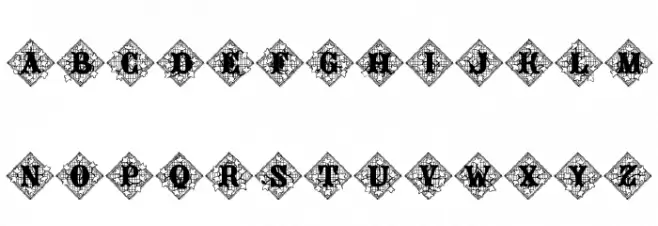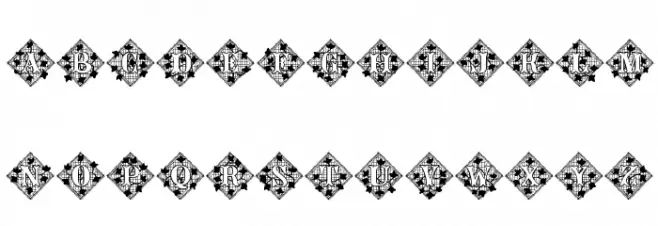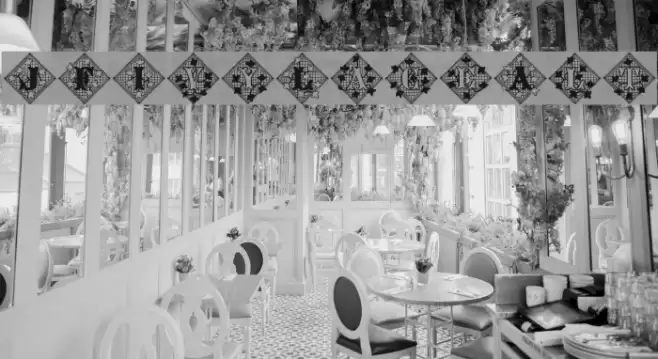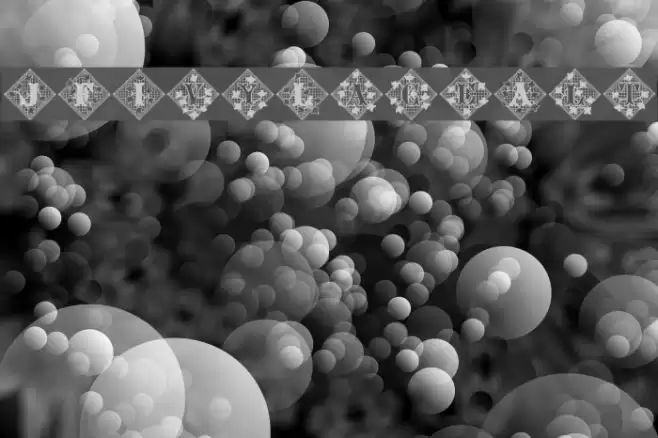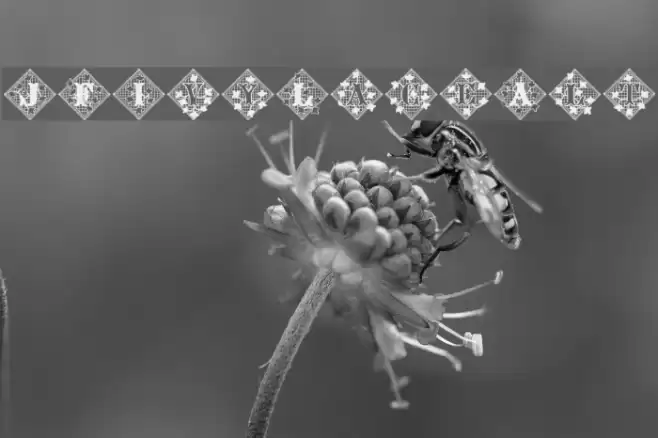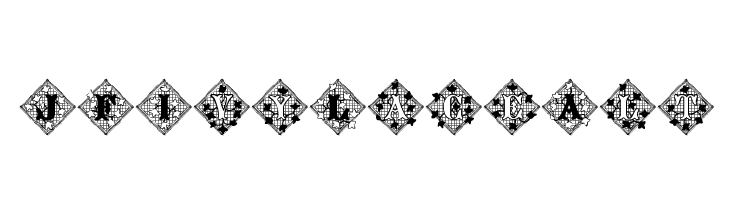
JFIvyLaceAlt
This font features an intricate and decorative design, with each letter enclosed in a diamond-shaped frame. The characters are embellished with ornate patterns reminiscent of lace or filigree, giving it a luxurious and vintage feel. The uppercase and lowercase letters maintain a consistent style, with the embellishments adding a sense of elegance and sophistication. The numbers and special characters are similarly adorned, ensuring a cohesive look across all glyphs. This font is ideal for projects that require a touch of opulence and historical charm.
An ornate, decorative font with intricate lace-like patterns.
- Proposed Projects: Ideal for wedding invitations, luxury branding, vintage-themed posters, and decorative book covers.
- Overall Style: Vintage
- Use Case: Logos, Headlines, Decorative text